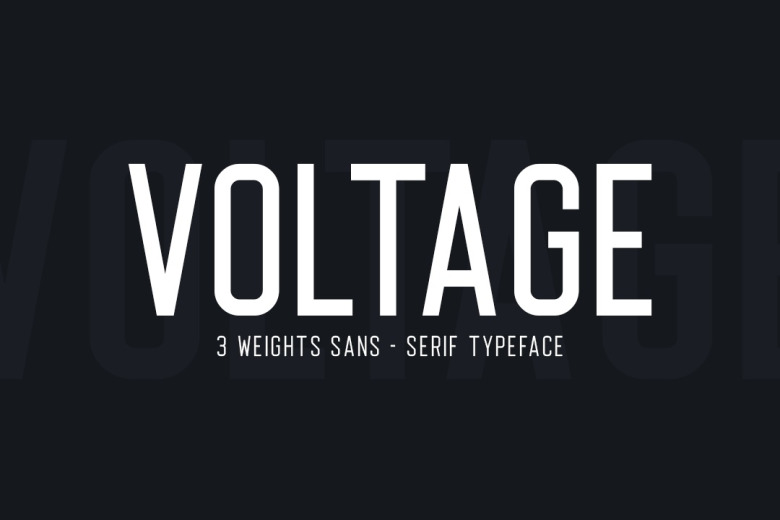
Voltage Font
Voltage is a simple and bold sans serif font with a cool feel. It will turn any design project into a stand out.
Voltage Sans Serif Font